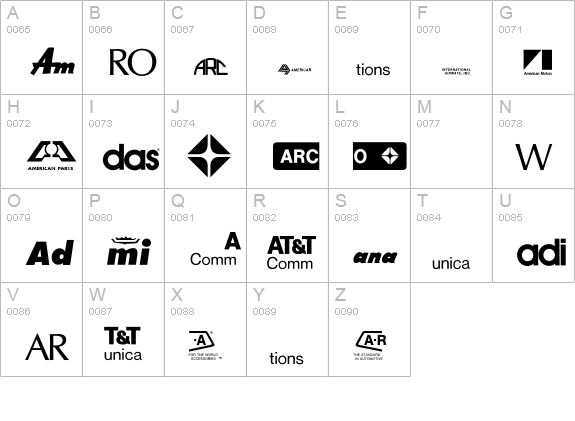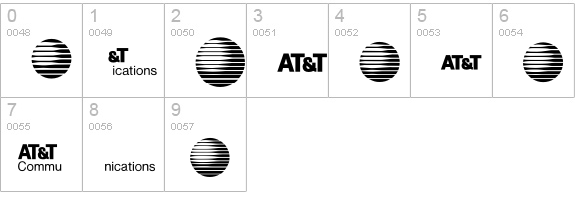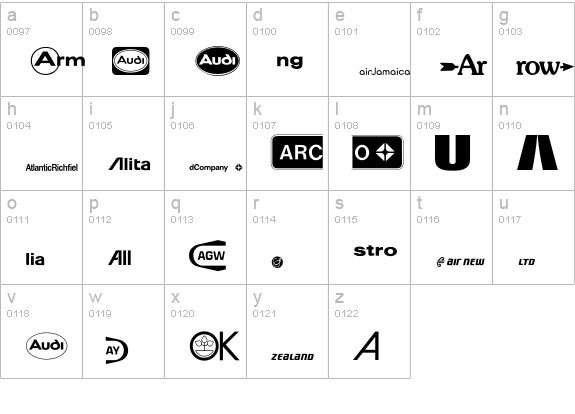
Introducing LogosCompanyP02 font, a sleek and modern typeface that exudes sophistication and professionalism. This versatile font is perfect for a wide range of design projects, from logos to branding materials to website design. With its clean lines and stylish curves, LogosCompanyP02 font is sure to make a lasting impression. What's more, LogosCompanyP02 font is completely free to download at FontsMarket.com. Yes, you read that right - this high-quality font is available for you to use in your projects at no cost. Don't miss out on the opportunity to add LogosCompanyP02 font to your design toolbox and elevate your creations to the next level. Download it today and start creating stunning designs with ease.